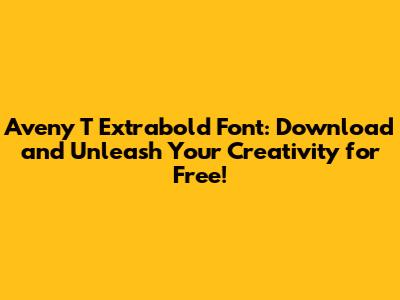
Hey design enthusiasts and fellow creators! Are you on the hunt for a font that screams modern, bold, and incredibly stylish? Well, get ready to level up your design game because today, we're diving deep into the Aveny T Extrabold font, and guess what? You can download Aveny T Extrabold font for free! This isn't just any font; it's a powerhouse of personality that can transform your projects from 'meh' to 'wowza!' Whether you're crafting a killer brand identity, designing eye-catching social media graphics, or laying out a stunning magazine spread, this font has got your back. We'll explore why Aveny T Extrabold is such a go-to choice for designers worldwide and guide you on how to snag this amazing typeface without spending a dime. So, buckle up, because we're about to unlock a world of design possibilities with one of the most versatile and impactful fonts out there. Get ready to make your designs pop, stand out, and leave a lasting impression. Let's get started!
Why Choose the Aveny T Extrabold Font?
So, what makes the Aveny T Extrabold font a must-have in your typographic arsenal, especially when you can download Aveny T Extrabold font for free? Let's break it down, guys. First off, the extrabold weight is where the magic truly happens. It’s not just thick; it's commanding. This font possesses a unique blend of geometric precision and humanist warmth, making it incredibly versatile. Think clean, modern lines that offer clarity and impact, coupled with subtle curves that add a touch of friendliness. This duality is crucial. It means Aveny T Extrabold isn't limited to just edgy, contemporary designs. It can work beautifully in a wide range of applications, from sophisticated branding to more playful marketing materials. The letterforms are robust and legible, even at larger sizes, which is absolutely critical for headlines, titles, and any text that needs to grab attention immediately. When you're trying to make a statement, a font like Aveny T Extrabold does the heavy lifting for you. Its presence is undeniable, ensuring your message is seen and felt.
Furthermore, the design specifics of Aveny T Extrabold are worth noting. The consistent stroke width, the open counters, and the well-defined terminals all contribute to its superior readability and aesthetic appeal. It avoids the common pitfalls of some bold fonts that can become muddy or illegible at certain sizes. Instead, Aveny T Extrabold maintains its crispness and character. The spacing is also meticulously considered, which means text set in this font feels balanced and harmonious. This attention to detail is a hallmark of high-quality typefaces and is something you truly appreciate when you're working under tight deadlines. Plus, the free availability means you can experiment with it extensively without any financial commitment, encouraging you to push your creative boundaries. It’s the perfect choice for designers who want a font that is both strong and sophisticated, capable of delivering powerful messages with undeniable style. Its inherent boldness makes it ideal for display purposes, ensuring that whatever you design will command attention and communicate with authority.
Tips for Using the Aveny T Extrabold Font Effectively
First up, embrace its display strength. The extrabold weight is designed to grab attention. Use it for headlines, subheadings, logos, and short, impactful statements. Think of it as your visual exclamation point! Trying to use it for long paragraphs of body text is generally a no-go. It will become overwhelming and difficult to read. Instead, pair it with a simpler, more legible sans-serif or serif font for your body copy. This contrast creates visual hierarchy and makes your overall design more balanced and professional. For instance, a clean sans-serif like Open Sans or Lato would be a fantastic companion for the body text when Aveny T Extrabold is ruling the headlines.
Furthermore, if the Aveny T family includes italic versions, these can add another layer of expressiveness. Italic fonts are often used for emphasis, quotes, or to add a touch of elegance. By understanding the full spectrum of the Aveny T font family, you can move beyond just the